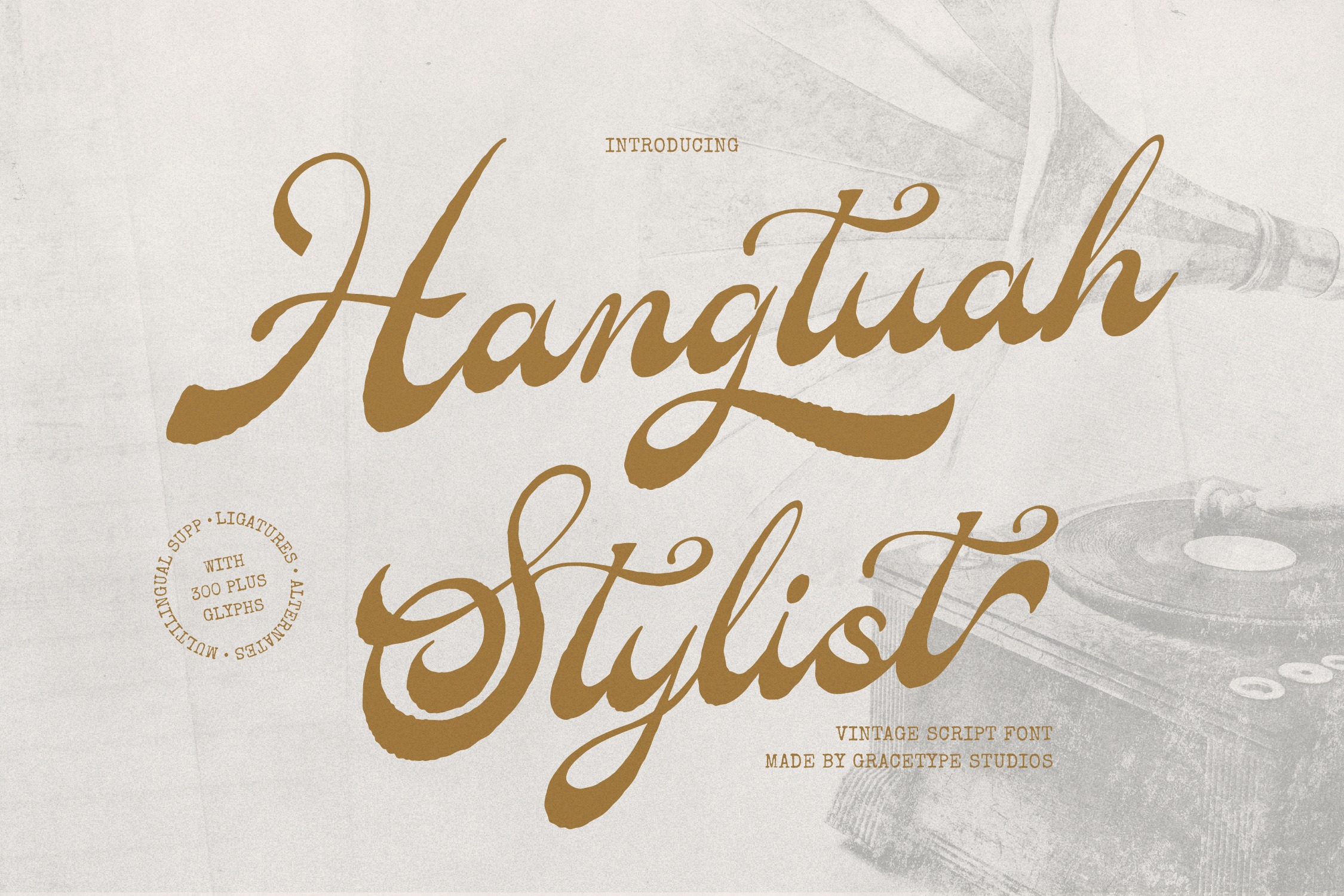
Hangtuah – Vintage Script Font
Hangtuah – Vintage Script Font is a distinctive and expressive font crafted to bring personality, structure, and creative energy into your projects. Hangtuah | Vintage Script Font, from Gracetypestudio, suitable for any projects such as: logos, branding projects, homeware designs, product packaging, mugs, quotes, posters, shopping bags, t-shirts, book covers, name card, invitation cards, greeting cards, label, photography, watermark, special events, and all your other lovely projects that need a Script taste.